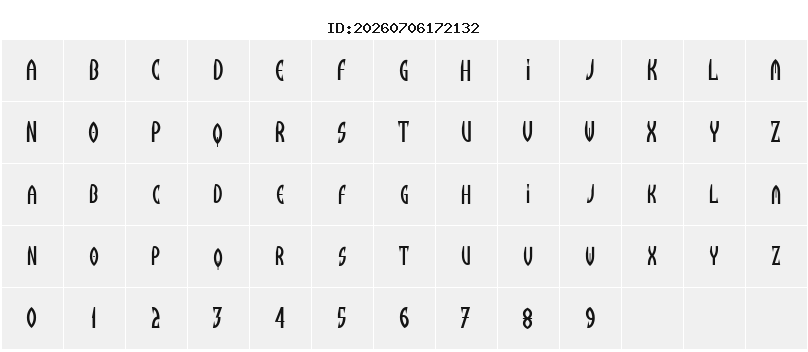
Devit Preview
• Font Name: Devit
• Full Font Name: Devit
• PostScript Name: Devit
• Character Count: 204
• Copyright: Copr.1994 [T-26], Chicago, Illinois. Lewis Tsalis Designer
• Manufacturer: Copr. [T- ], Chicago, Illinois. Lewis Tsalis Designer
About Devit.ttf
Devit.ttf is a modern, elegant sans-serif font designed for ultimate readability and visual harmony. Perfect for branding, headlines, web design, and print materials.